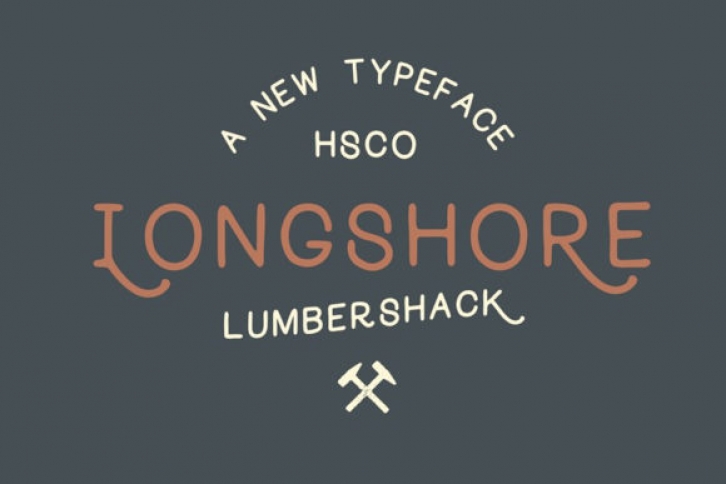
Longshore is a sweet and friendly display font. Its natural and unique style makes it incredibly fitting to a large pool of designs. The only limit is your imagination!